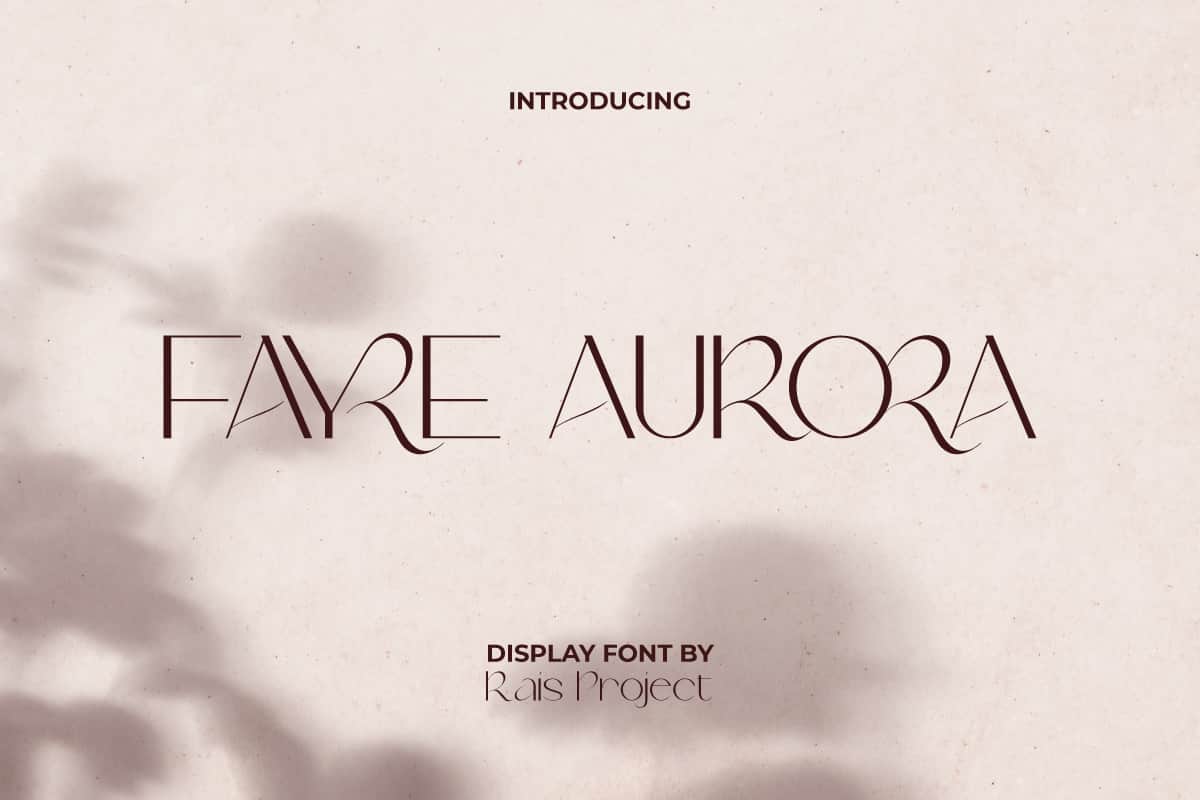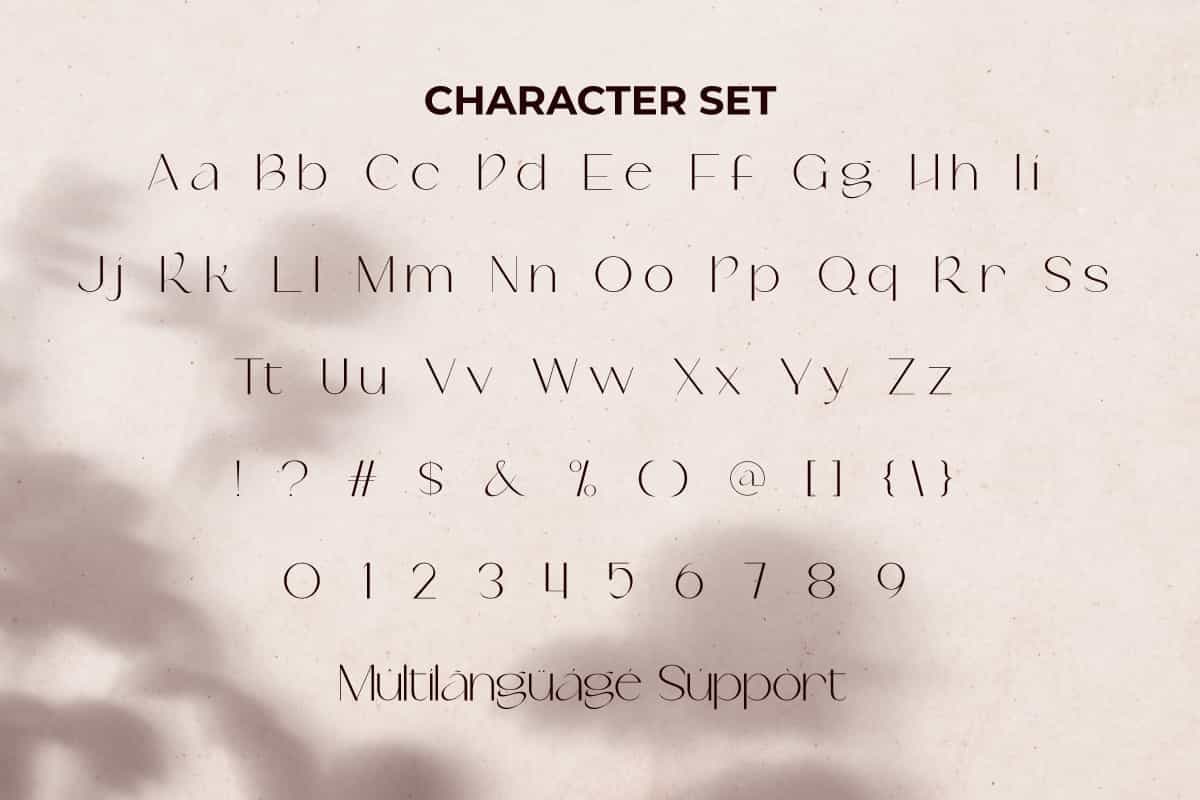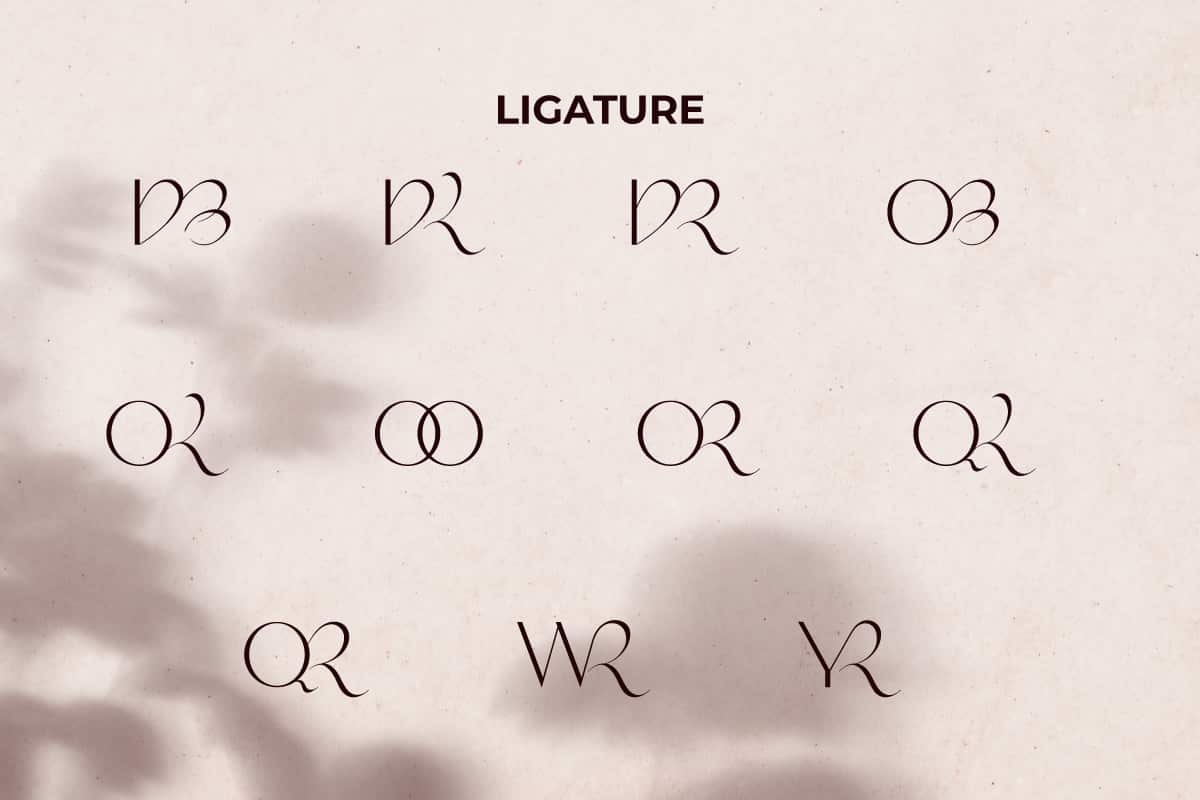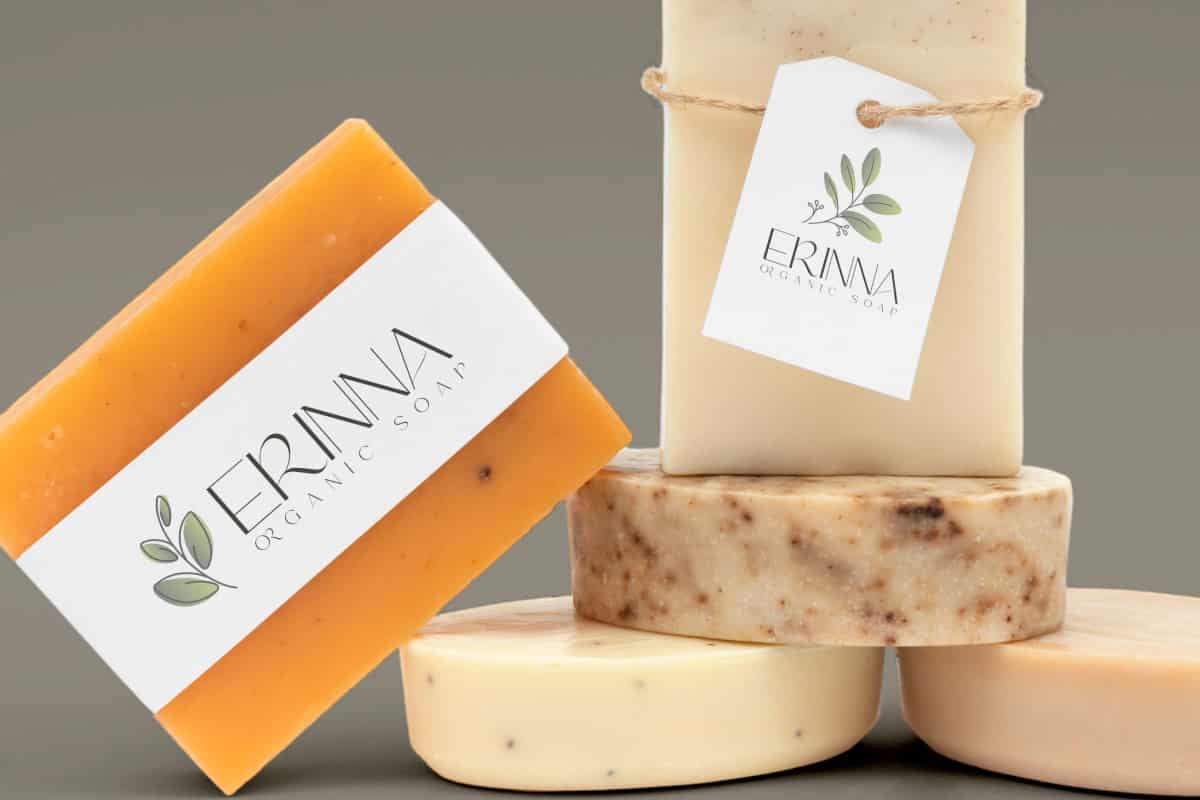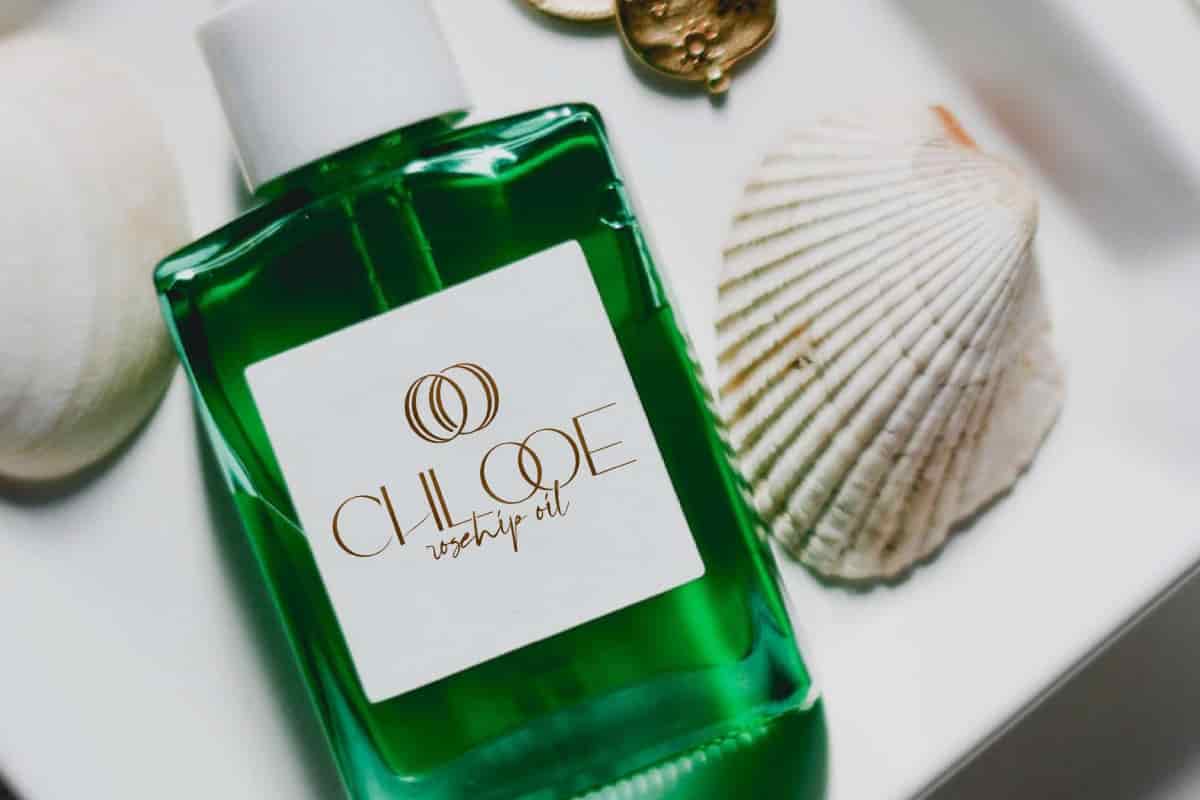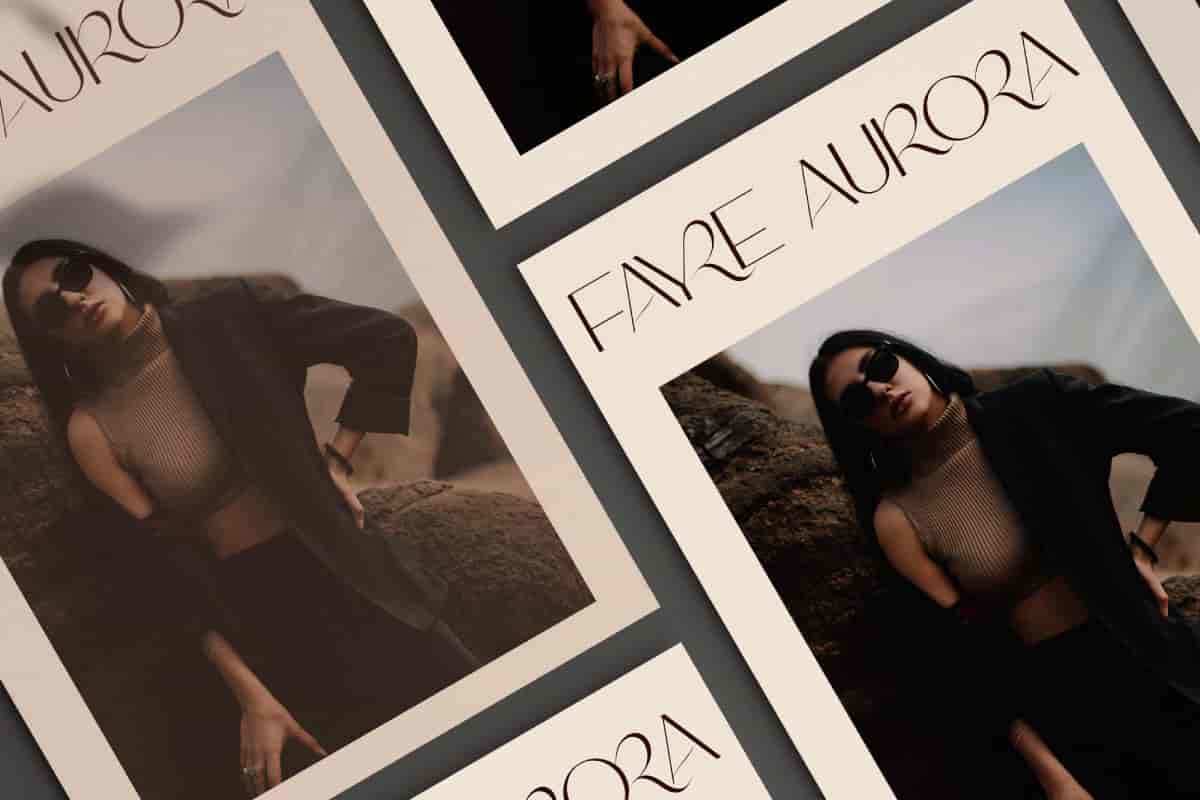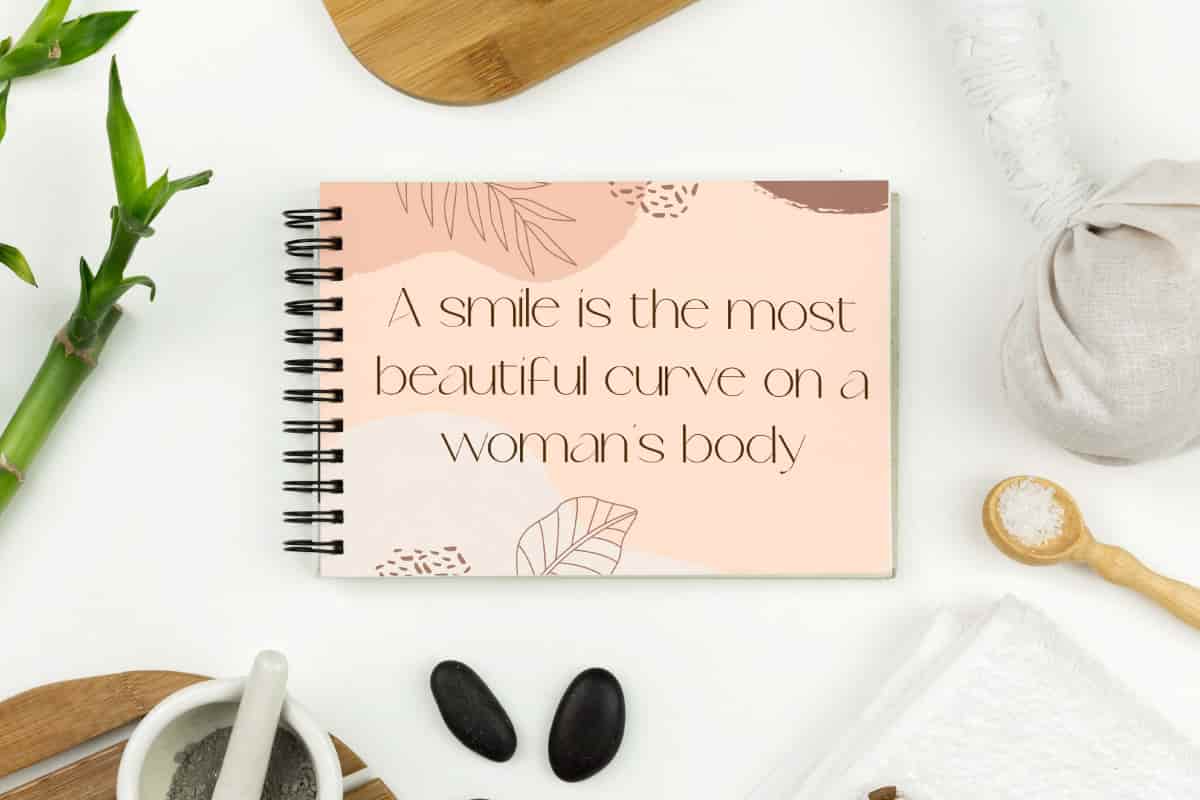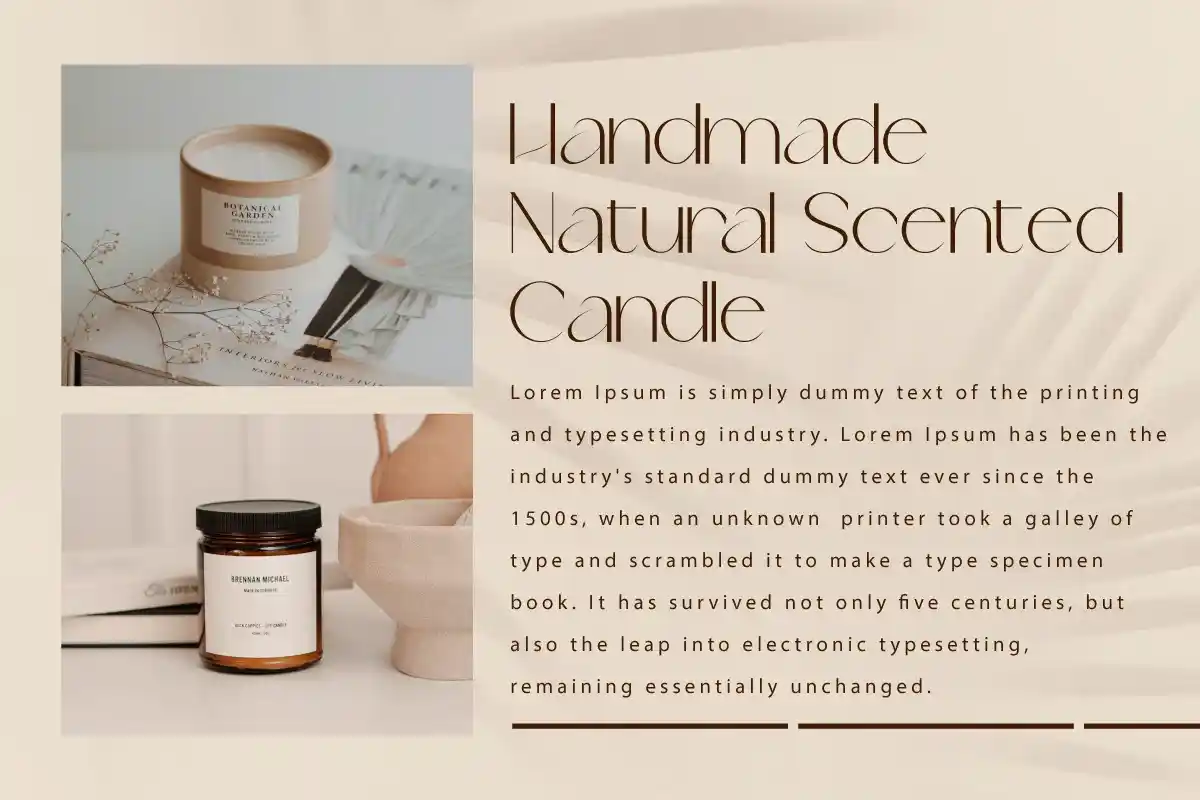
Fayre Aurora Display Font
Fayre Aurora Font is a stylish sans serif display font that will make your designs looks authentic!,This sans serif font has an elegant and special aura to make your design even more amazing.
Fayre Aurora Font is a clean, stylish and beautiful display font, by RaisProject.This sans serif font has an elegant and special aura to make your design even more amazing. It will be good for any designs, such as brand image, cover, custom design, greeting card, invitation, label, poster, product packaging, quotes, signage, stationery, web, and more! You can see the demo font below, input any word you want so you can see what it looks like:
Fayre Aurora Font includes a full set of Uppercase and Lowercase Letters, Numerals, Punctuation, Symbol, and Ligature characters. This modern font will be suitable for various industries, such as accessories, advertisement, event or wedding organizer, fashion, florist, homeware, perfume, photography, printing, publishing, etc. What you get: